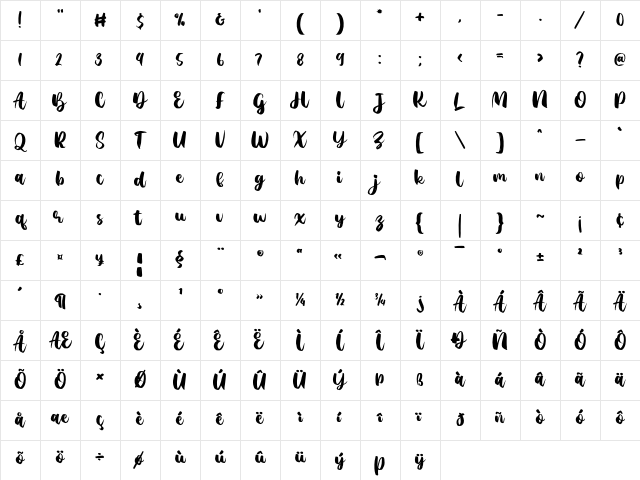
Agil Script Regular
Designer: Virgiawan Listanto
Design Context for Agil Script
Agil Script flows with the natural rhythm of handwritten lettering, making it ideal for designs that call for warmth and personal expression.
Font Pairing: Combine Agil Script with a simple geometric sans for maximum contrast - the tension between flowing curves and clean structure is a classic typographic pairing.
Pro Tip: Use Agil Script for short runs of text - names, titles, or taglines. Extended body copy in script faces tires the eye quickly.